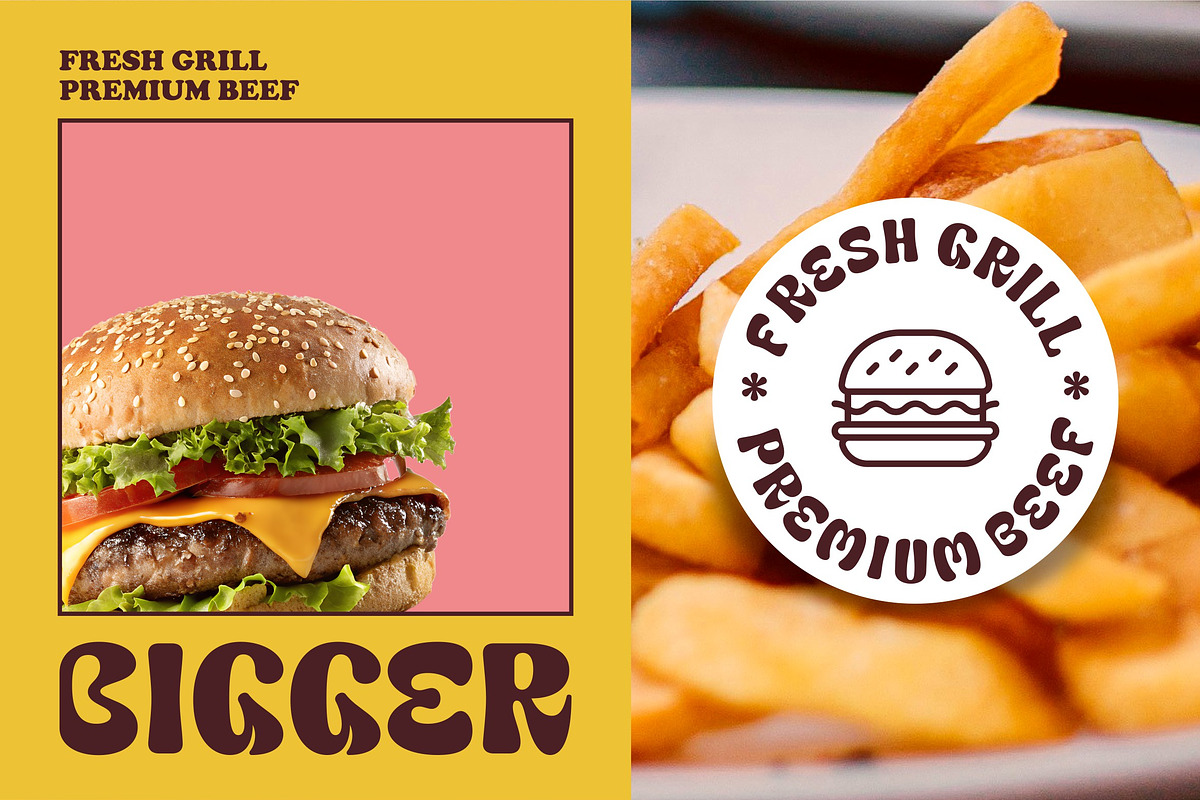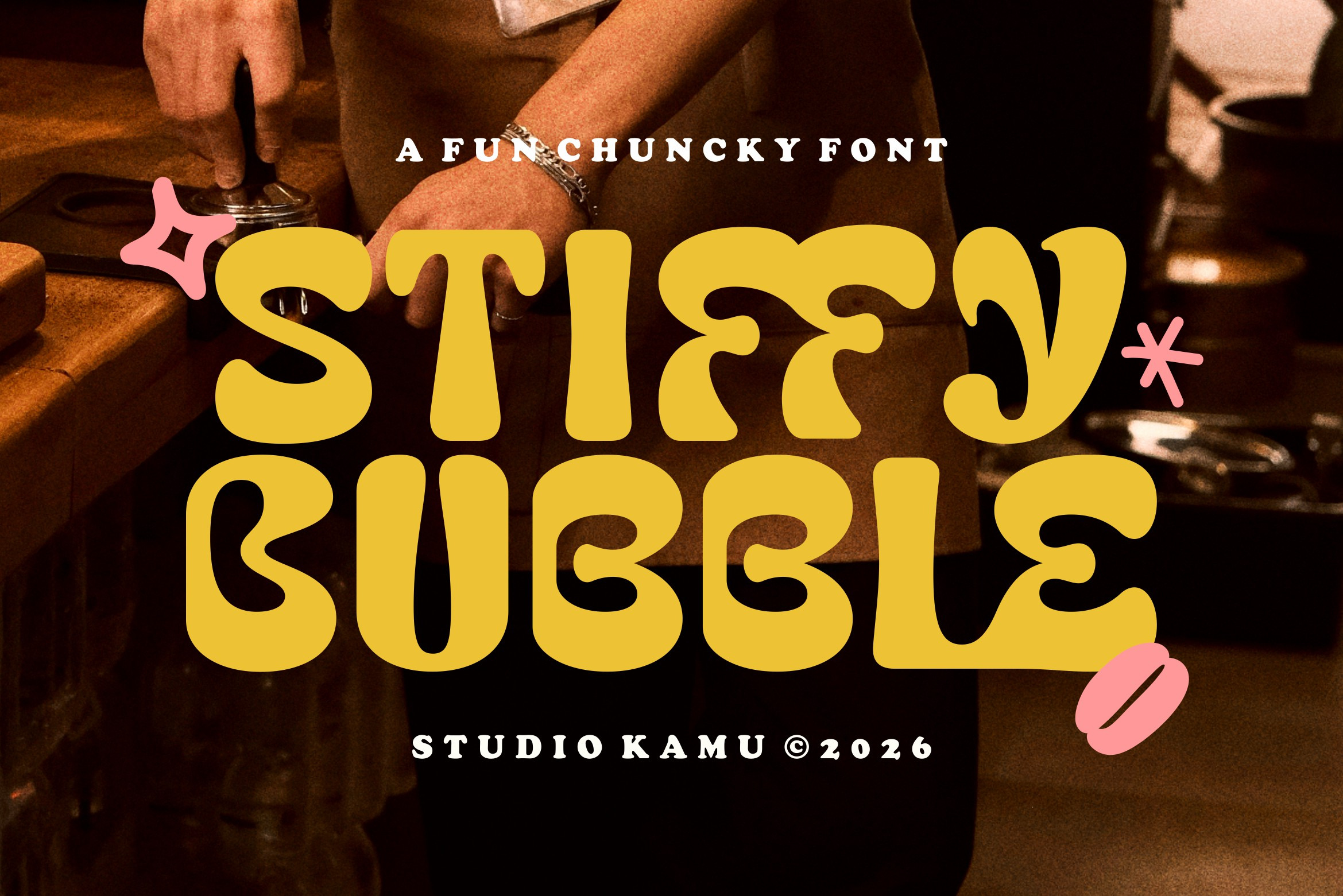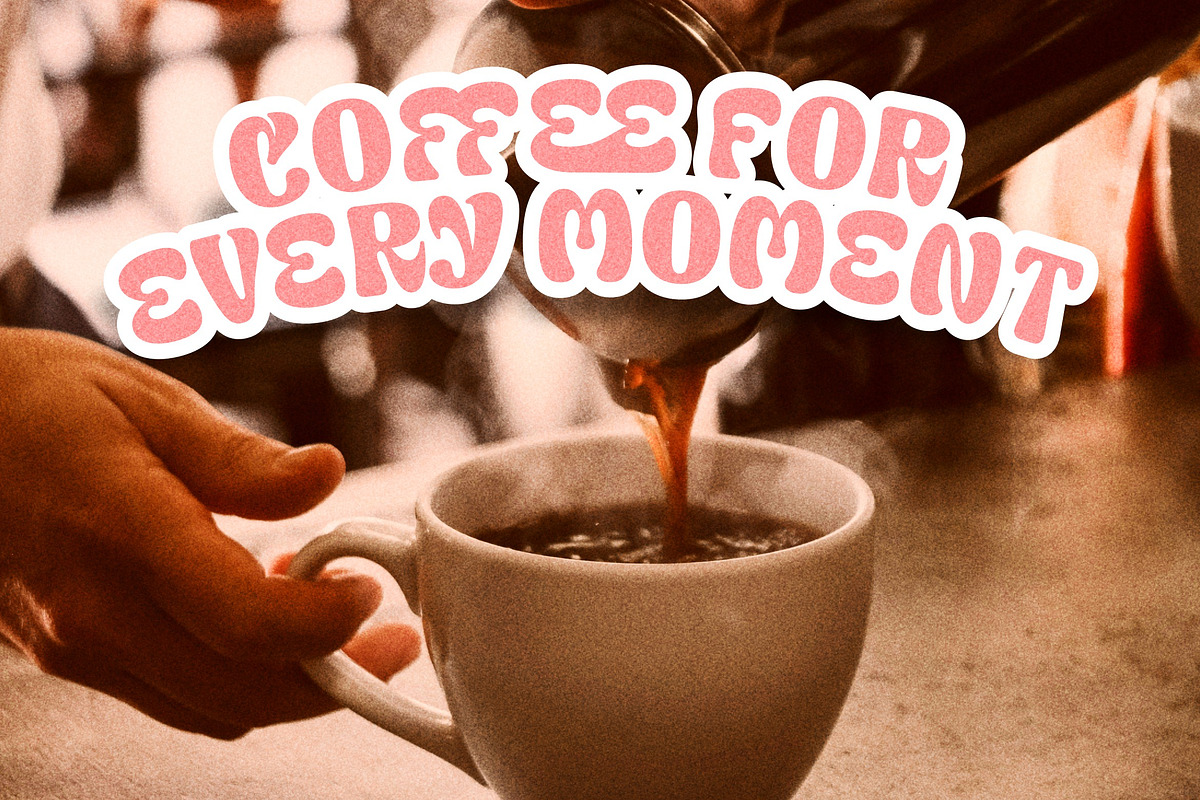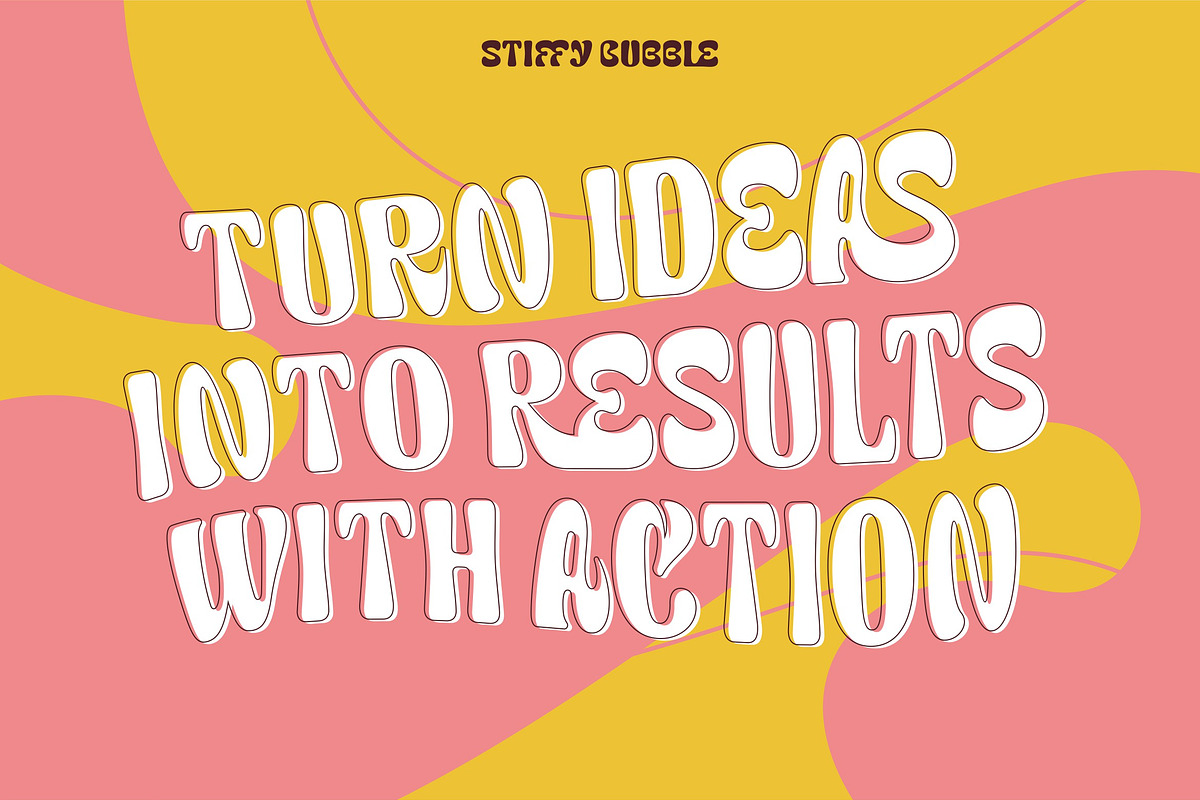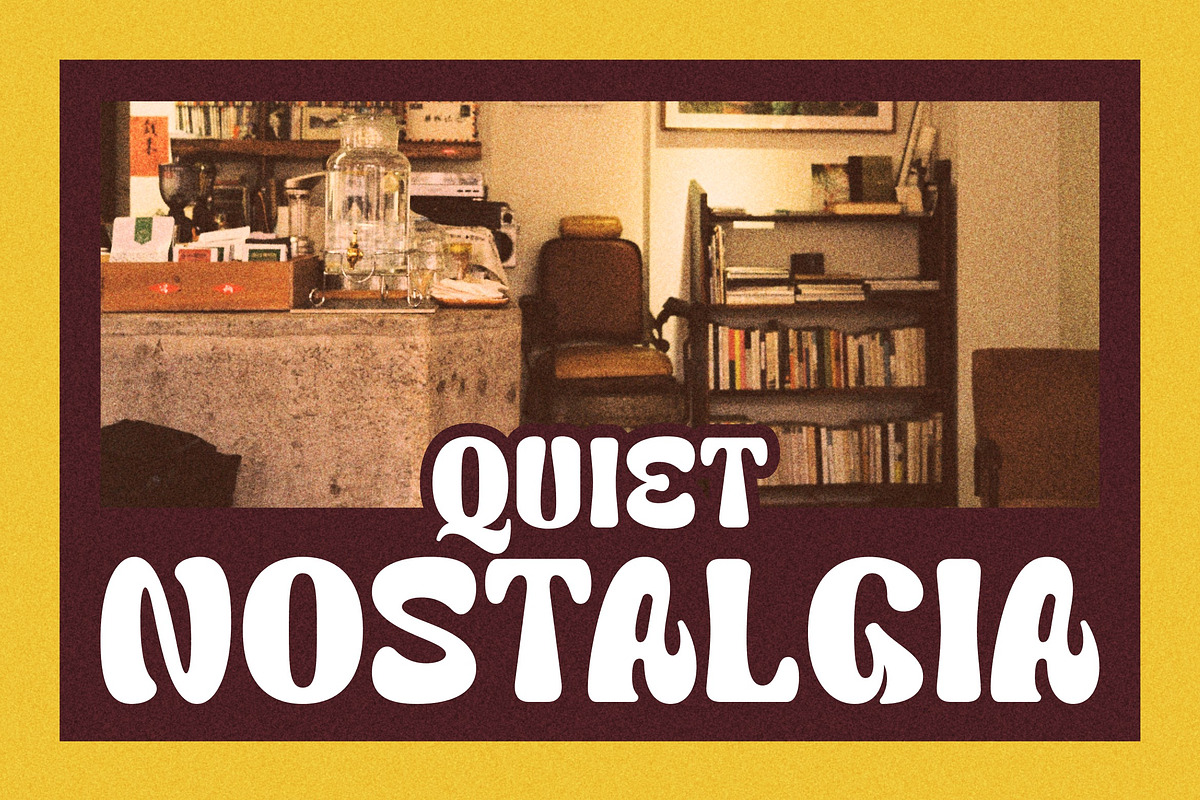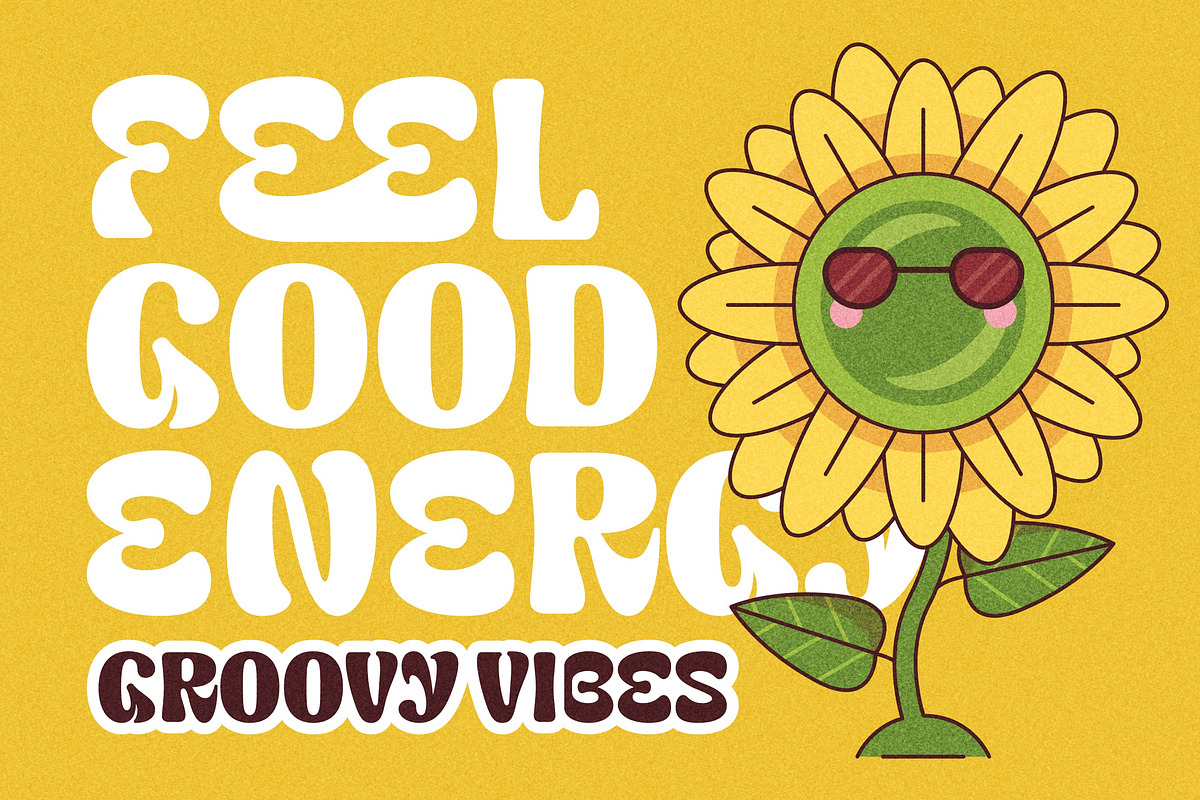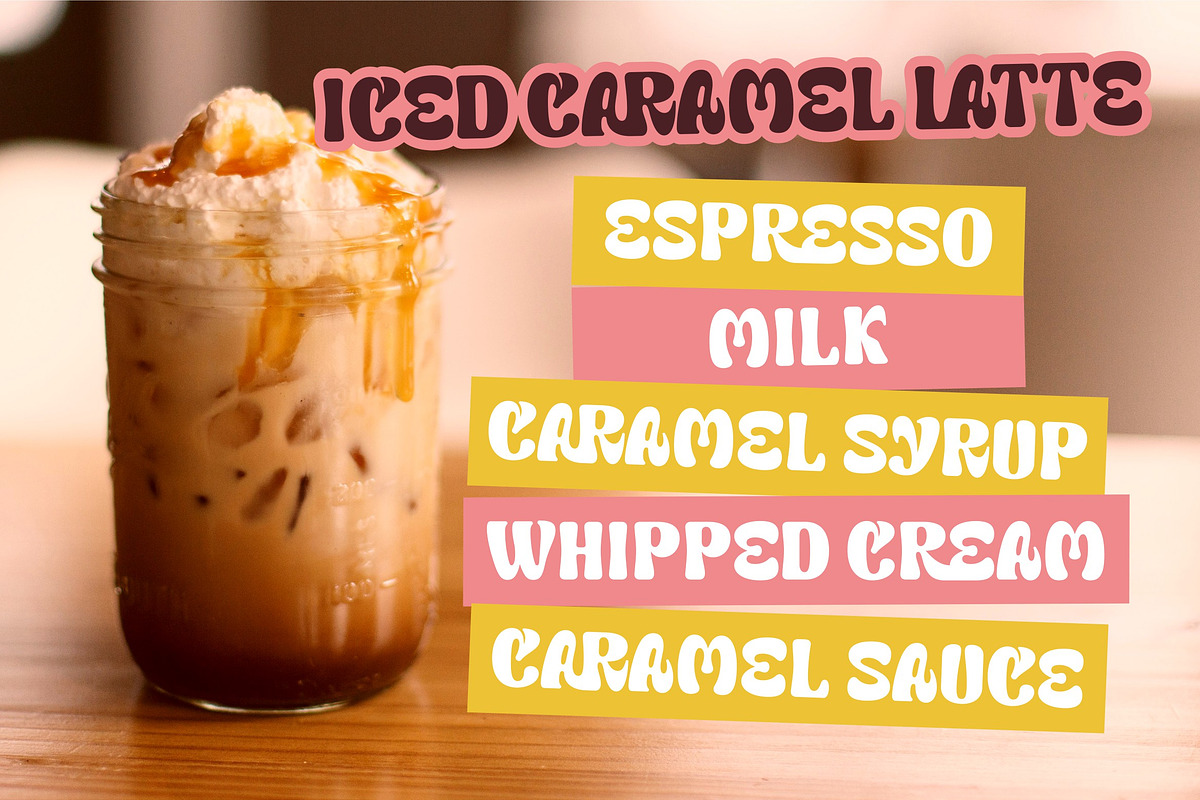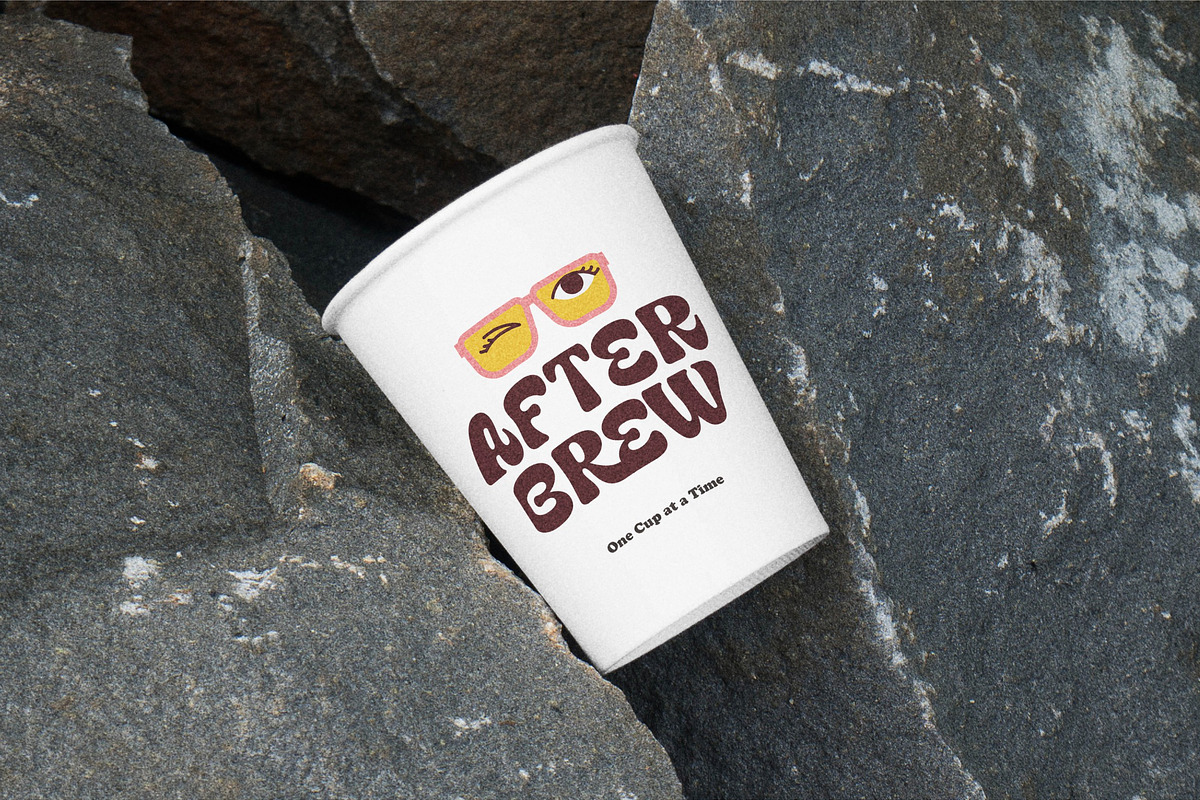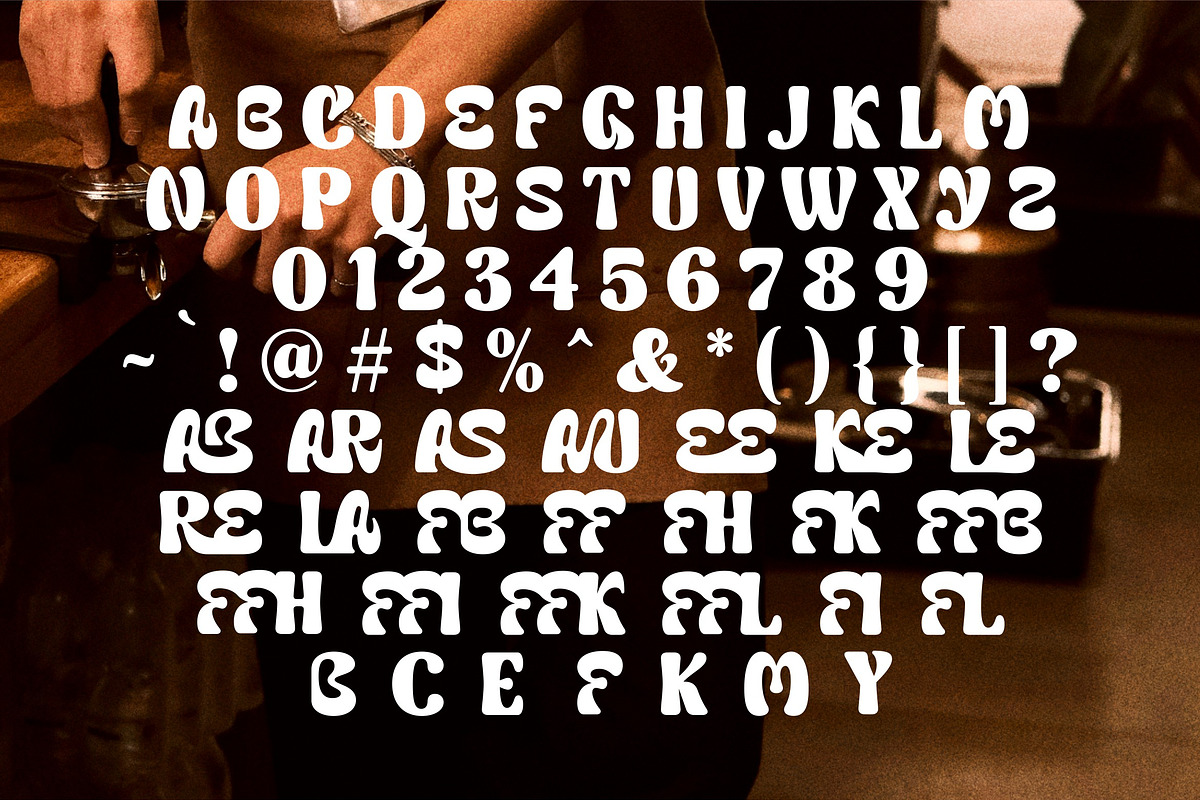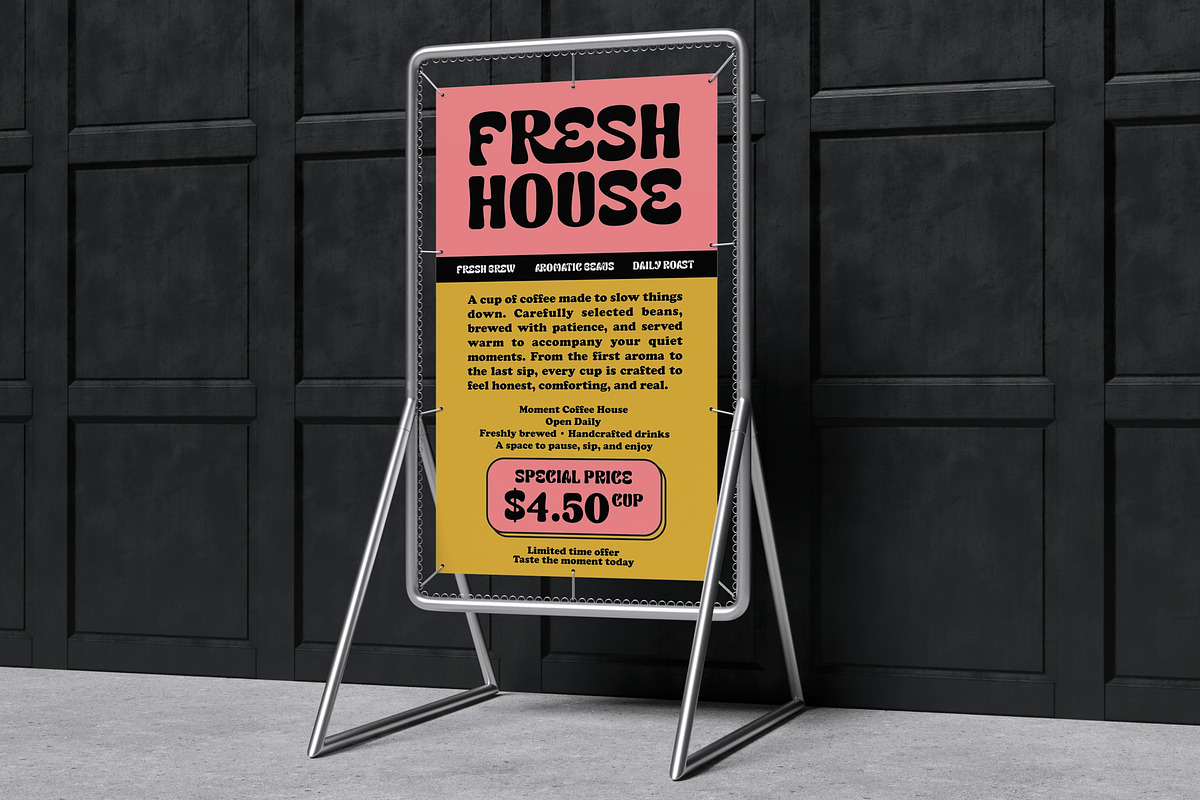
Stiffy Bubble - Chunky Font
Stiffy Bubble is a bold, chunky display font that delivers a fun and playful personality with a strong visual impact. Featuring soft curves, bubbly shapes, and a slightly retro vibe, this typeface strikes a perfect balance between quirky charm and modern style.
Its thick, rounded forms make it highly eye-catching and easy to read, making it ideal for branding, packaging, posters, headlines, and social media designs. Stiffy Bubble brings a warm, friendly feel while still standing out with confidence.